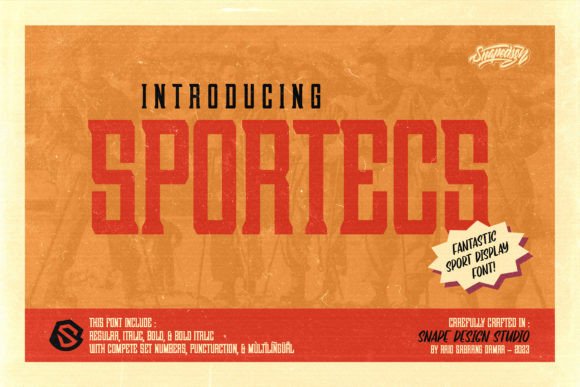
Unleash the Power of Sport and Energy with Sportecs Font: Embark on a Daring Typographic Adventure!
Experience the thrill of victory and unleash the raw power of athleticism with Sportecs Font – a game-changing display font that captures the essence of sports and invincibility. Its striking contours, composed of sharp angles and forceful curves, exude a sensation of unwavering confidence and competitive spirit.
Imagine the impact of your logo, jersey, or adrenaline-fueled design project adorned with the energetic personality of Sportecs. This font isn't just a collection of letters; it's a gateway to a world where boldness and strength reign supreme.
Visualize your designs soaring to new heights, radiating with the fervor of a champion. Whether you're crafting an emblem for a daring sports team, a dynamic jersey that ignites team spirit, or any project demanding an audacious typographic statement, Sportecs is your ultimate weapon.
Prepare to captivate your audience with every stroke of Sportecs, a font that embodies both elegance and ferocity. Its meticulously crafted characters carry the weight of a thousand victories, propelling your designs to the forefront of attention.
Sportecs is more than just a font; it's a manifesto of athleticism, a celebration of human potential. With this font by your side, you'll conquer the creative arena, leaving an indelible mark of strength and dynamism wherever you go.